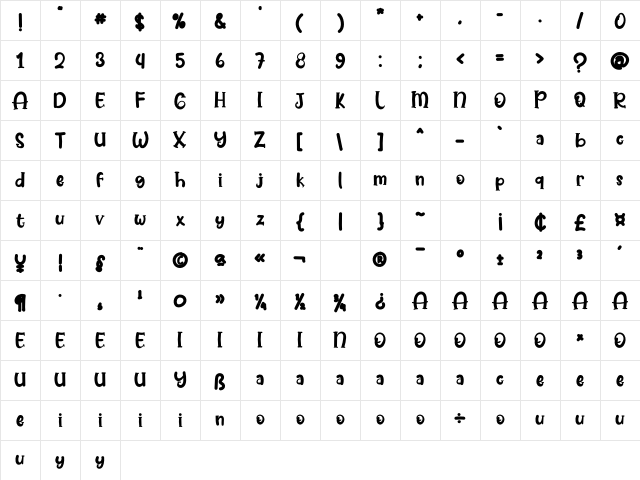
History Pumpkin Regular
Designer: Nur Edi Prayitno
Design Context for History Pumpkin
History Pumpkin is a composed and adaptable typeface that performs quietly and consistently across a wide range of design contexts.